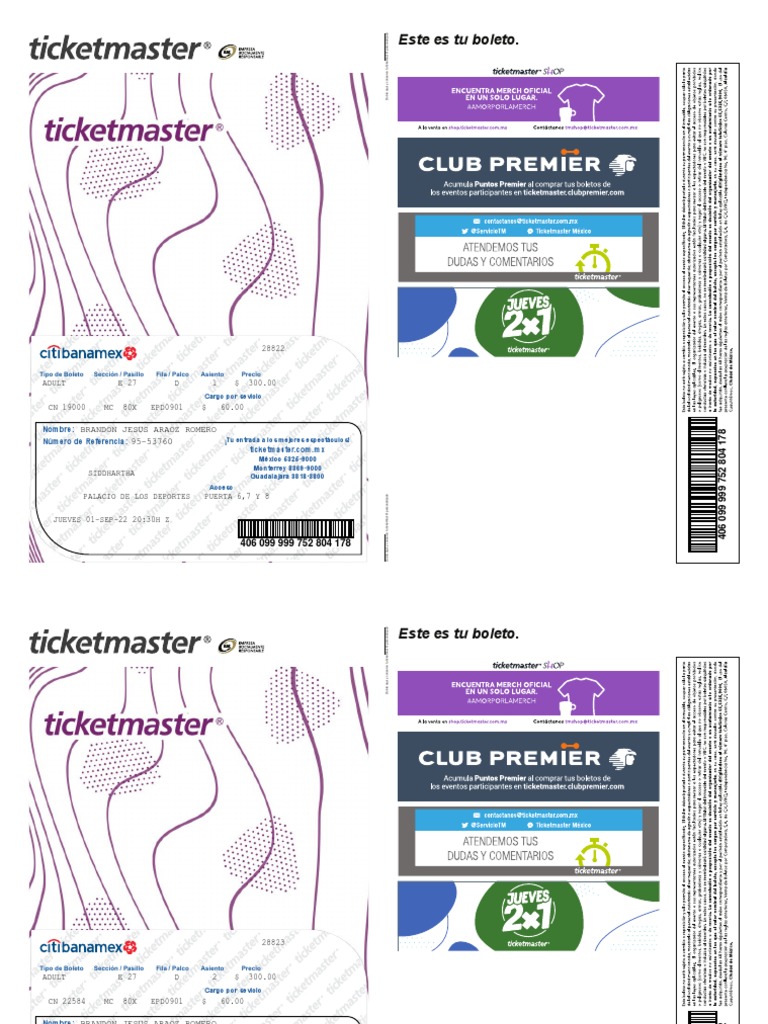
Ticket Master Font
Ticket Master Font - ‘buy at ticketmaster.xx’ or ‘buy at’ should always use the arial italic font. Ticketmaster blue (pantone 2925 c) is the brand’s primary colour and should be used as the dominant primary colour in all communications. For ticketmaster, the font style used across all their branding and marketing materials is the gotham font. Archive of freely downloadable fonts. Looking for ticket master fonts? Every font is free to download! Browse by alphabetical listing, by style, by author or by popularity. ‘buy at ticketmaster.xx’ should alway appear under the entire. Click to find the best 1 free fonts in the ticket master style.
Every font is free to download! Browse by alphabetical listing, by style, by author or by popularity. Ticketmaster blue (pantone 2925 c) is the brand’s primary colour and should be used as the dominant primary colour in all communications. Archive of freely downloadable fonts. Click to find the best 1 free fonts in the ticket master style. For ticketmaster, the font style used across all their branding and marketing materials is the gotham font. Looking for ticket master fonts? ‘buy at ticketmaster.xx’ should alway appear under the entire. ‘buy at ticketmaster.xx’ or ‘buy at’ should always use the arial italic font.
Click to find the best 1 free fonts in the ticket master style. Every font is free to download! ‘buy at ticketmaster.xx’ should alway appear under the entire. For ticketmaster, the font style used across all their branding and marketing materials is the gotham font. Looking for ticket master fonts? ‘buy at ticketmaster.xx’ or ‘buy at’ should always use the arial italic font. Archive of freely downloadable fonts. Browse by alphabetical listing, by style, by author or by popularity. Ticketmaster blue (pantone 2925 c) is the brand’s primary colour and should be used as the dominant primary colour in all communications.
For ticketmaster, the font style used across all their branding and marketing materials is the gotham font. Every font is free to download! ‘buy at ticketmaster.xx’ should alway appear under the entire. Click to find the best 1 free fonts in the ticket master style. Archive of freely downloadable fonts.
Archive of freely downloadable fonts. For ticketmaster, the font style used across all their branding and marketing materials is the gotham font. Ticketmaster blue (pantone 2925 c) is the brand’s primary colour and should be used as the dominant primary colour in all communications. ‘buy at ticketmaster.xx’ or ‘buy at’ should always use the arial italic font. Every font is.
Looking for ticket master fonts? Click to find the best 1 free fonts in the ticket master style. Every font is free to download! ‘buy at ticketmaster.xx’ or ‘buy at’ should always use the arial italic font. For ticketmaster, the font style used across all their branding and marketing materials is the gotham font.
Browse by alphabetical listing, by style, by author or by popularity. Archive of freely downloadable fonts. Click to find the best 1 free fonts in the ticket master style. ‘buy at ticketmaster.xx’ should alway appear under the entire. Every font is free to download!
‘buy at ticketmaster.xx’ or ‘buy at’ should always use the arial italic font. Browse by alphabetical listing, by style, by author or by popularity. Every font is free to download! Archive of freely downloadable fonts. ‘buy at ticketmaster.xx’ should alway appear under the entire.
Click to find the best 1 free fonts in the ticket master style. For ticketmaster, the font style used across all their branding and marketing materials is the gotham font. ‘buy at ticketmaster.xx’ should alway appear under the entire. Looking for ticket master fonts? Browse by alphabetical listing, by style, by author or by popularity.
Browse by alphabetical listing, by style, by author or by popularity. Ticketmaster blue (pantone 2925 c) is the brand’s primary colour and should be used as the dominant primary colour in all communications. ‘buy at ticketmaster.xx’ or ‘buy at’ should always use the arial italic font. ‘buy at ticketmaster.xx’ should alway appear under the entire. Every font is free to.
Looking for ticket master fonts? Archive of freely downloadable fonts. Browse by alphabetical listing, by style, by author or by popularity. For ticketmaster, the font style used across all their branding and marketing materials is the gotham font. Ticketmaster blue (pantone 2925 c) is the brand’s primary colour and should be used as the dominant primary colour in all communications.
‘buy at ticketmaster.xx’ should alway appear under the entire. For ticketmaster, the font style used across all their branding and marketing materials is the gotham font. Ticketmaster blue (pantone 2925 c) is the brand’s primary colour and should be used as the dominant primary colour in all communications. ‘buy at ticketmaster.xx’ or ‘buy at’ should always use the arial italic.
‘Buy At Ticketmaster.xx’ Or ‘Buy At’ Should Always Use The Arial Italic Font.